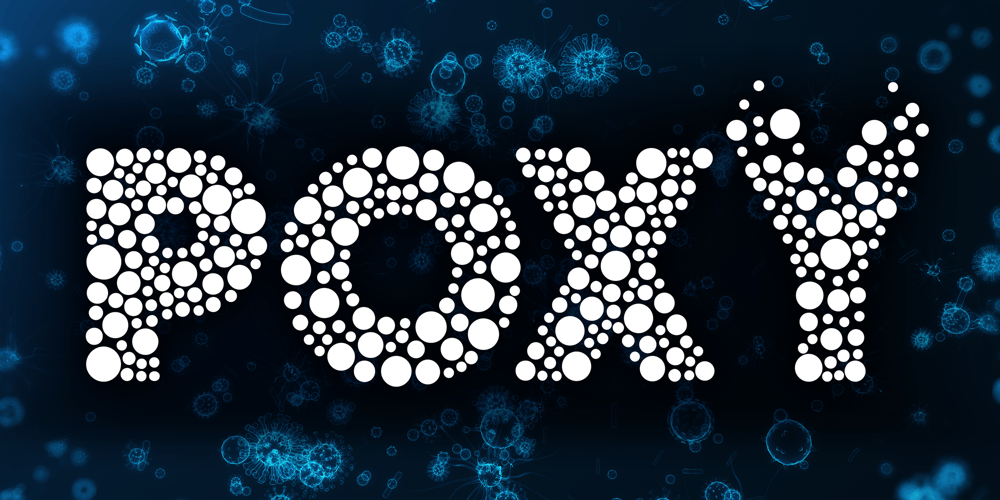
Poxy
Poxy font
Poxy Font Family was designed by Paul Cracknell and published by Something and Nothing. Poxy contains 3 styles and family package options. Presenting Poxy, an innovative display font boasting a black weight and crafted from dynamic particles. With three distinct styles available — circles, hexagons, and stars — Poxy offers a versatile range of visual expressions. Delve deeper into its captivating features with the Alternate Glyph OpenType feature, allowing letters, numbers, and symbols to gracefully float away atop each glyph.